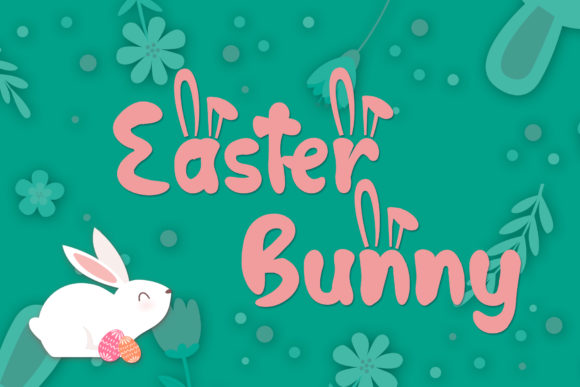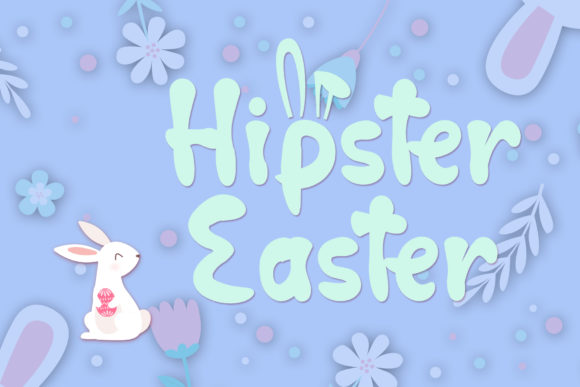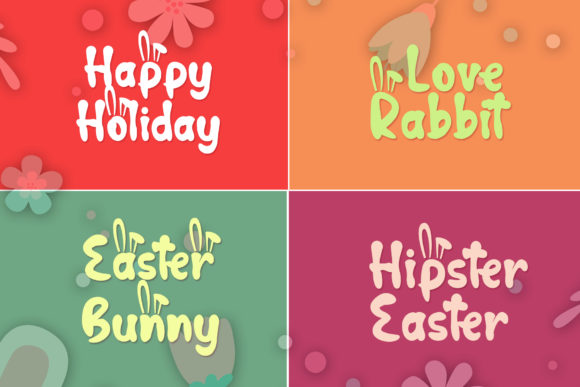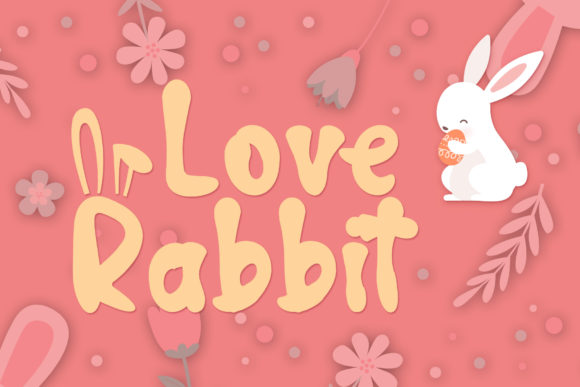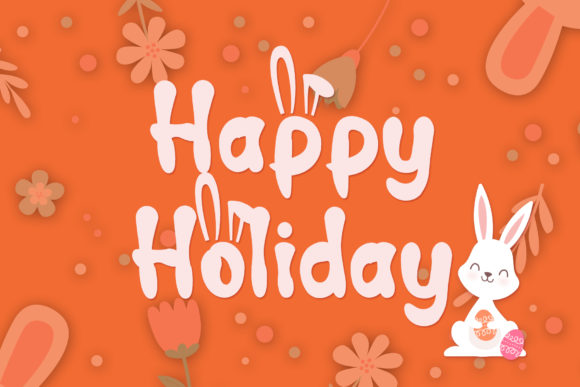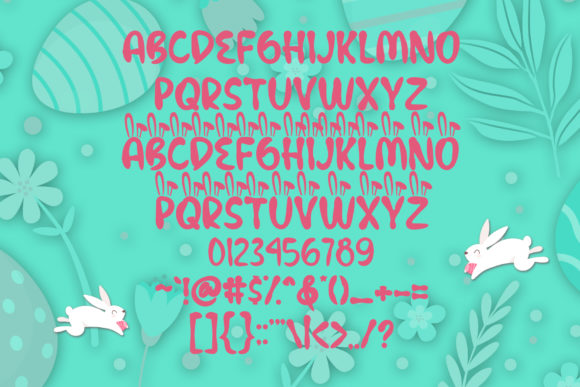
Introduction to Hop Hop Bunny Font
Hop Hop Bunny is cute, adorable and fun display font.
Get inspired by its lovely bunny ears and whimsical charm .
Key Features of Hop Hop Bunny Font